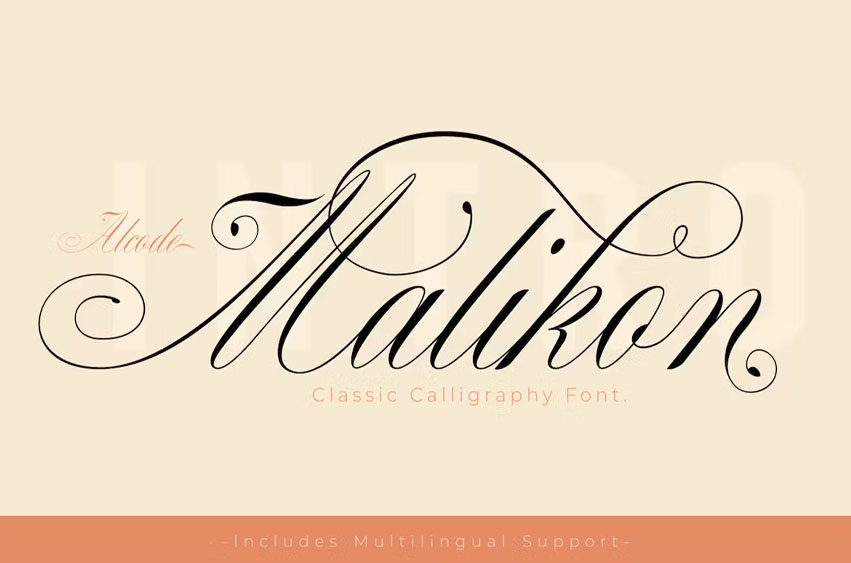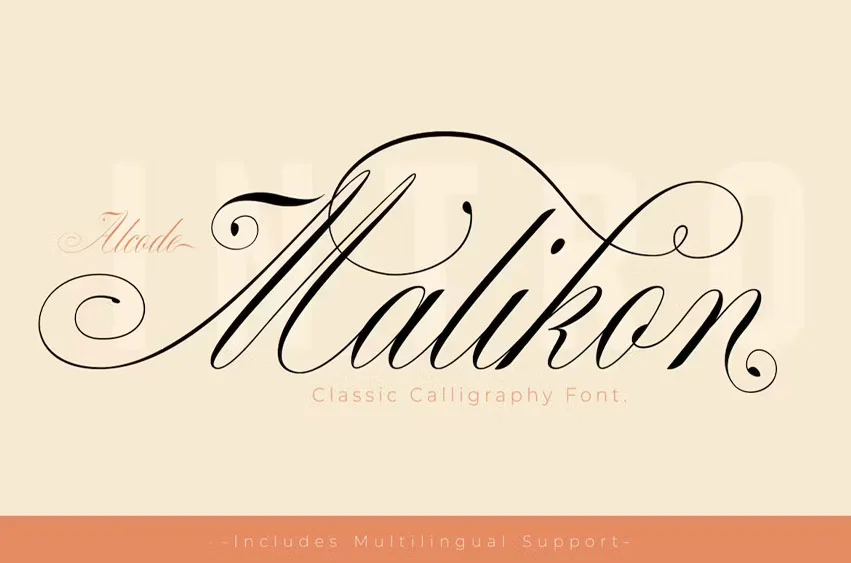
Malikon Font is a classic letter, each letter has been carefully made to make your text look beautiful. This font is perfect for logos, badges, shirts, labels, clothing designs, etc.
Try Malikon, enjoy the richness of OpenType features and let the fun and elegant fun make you happy and increase your creativity! You can use this font very easily.
multilingual support and special ligatures